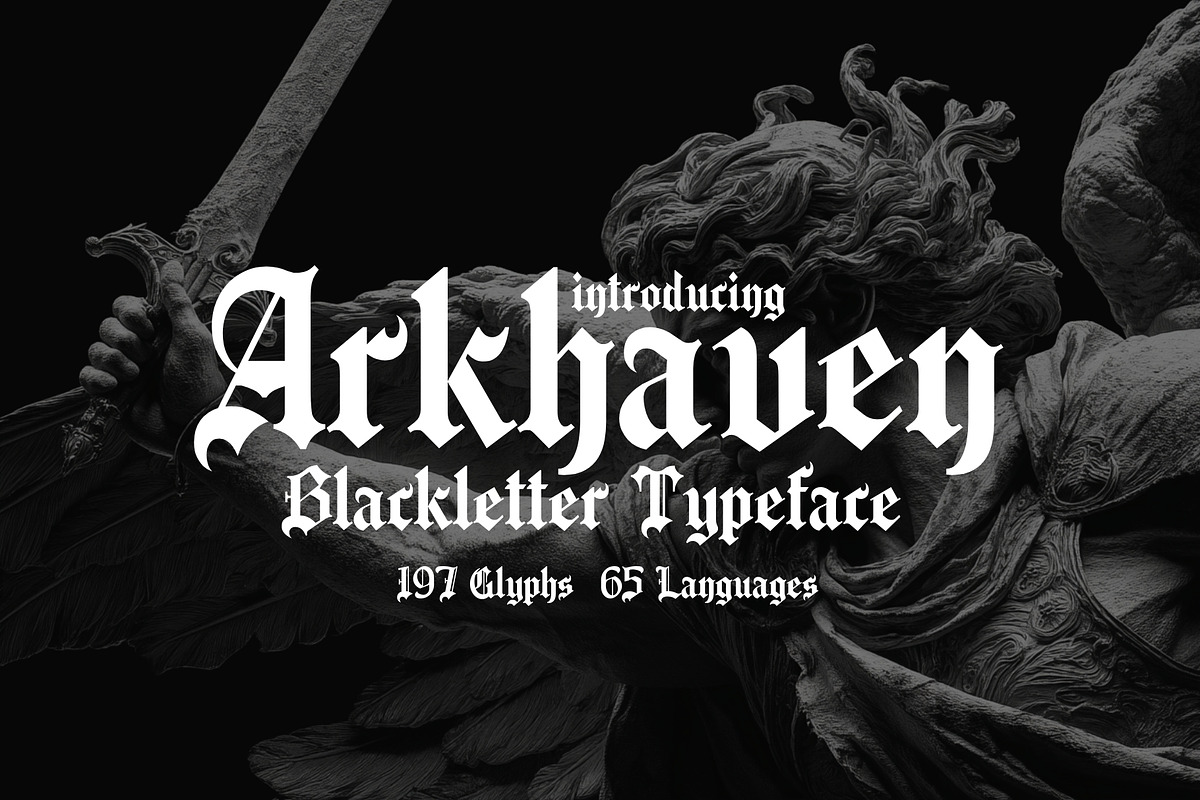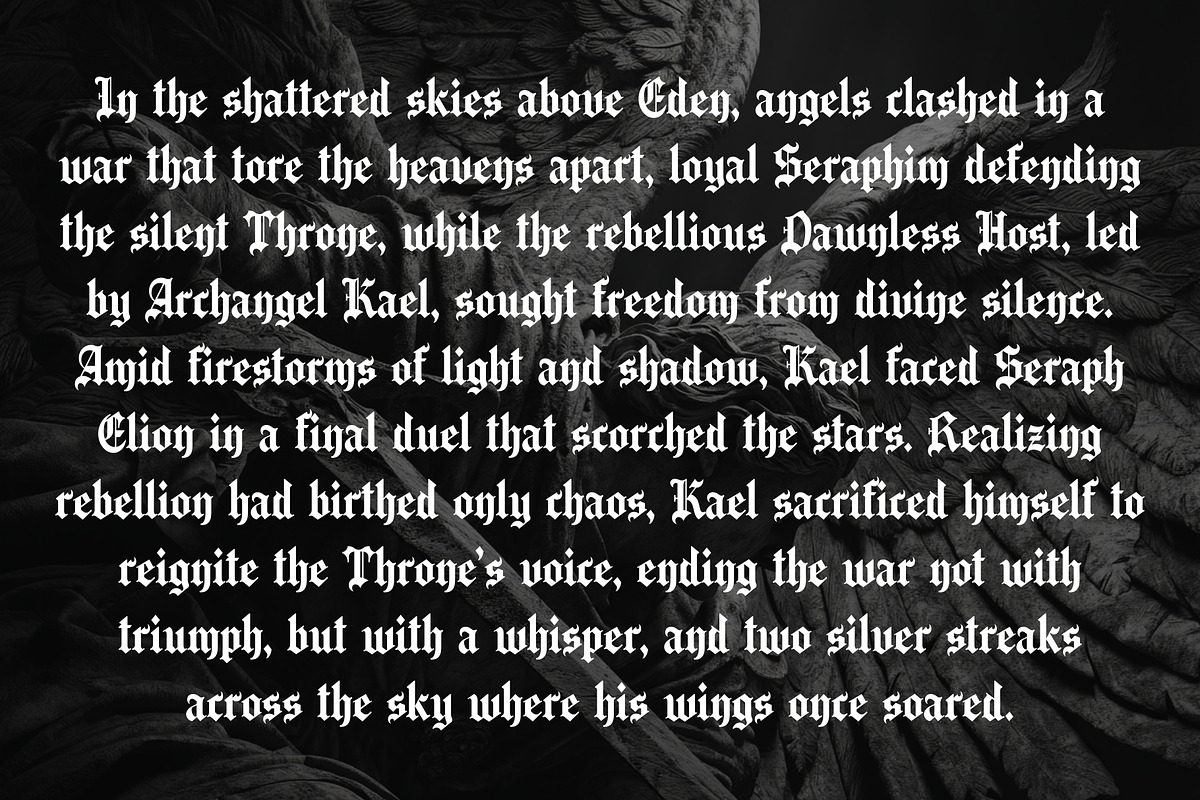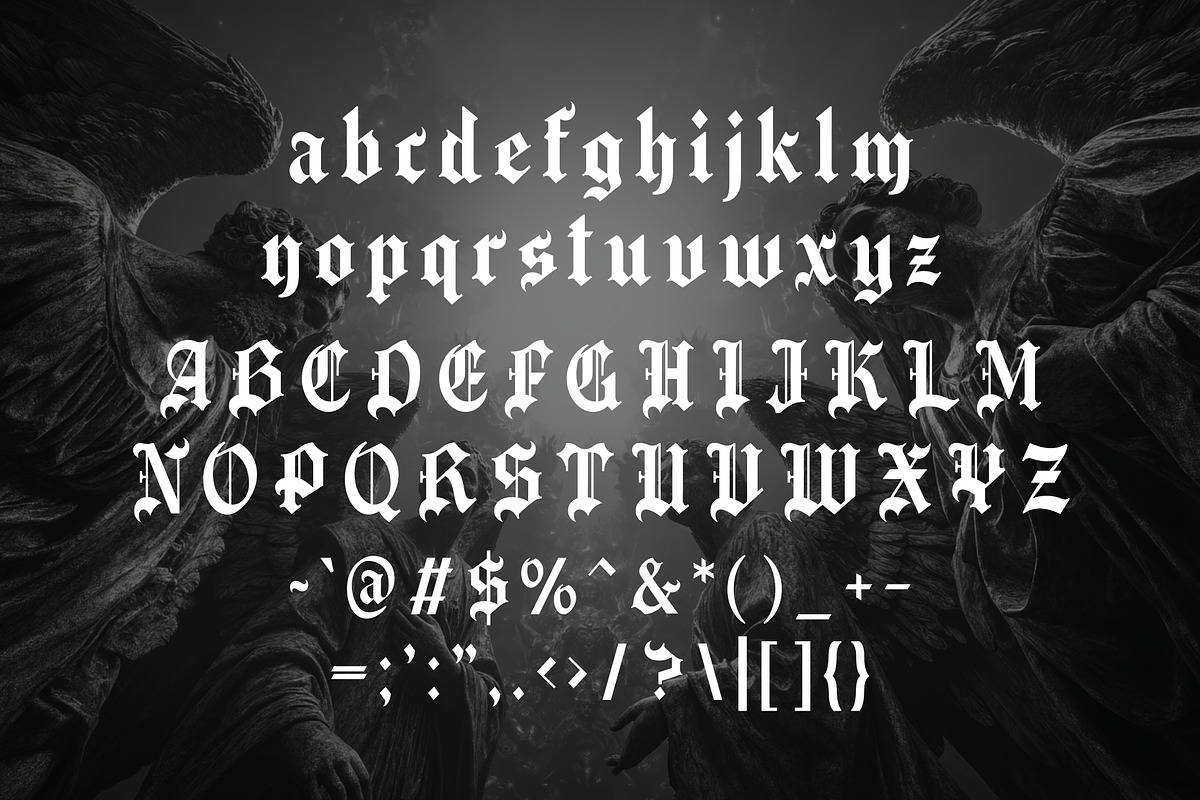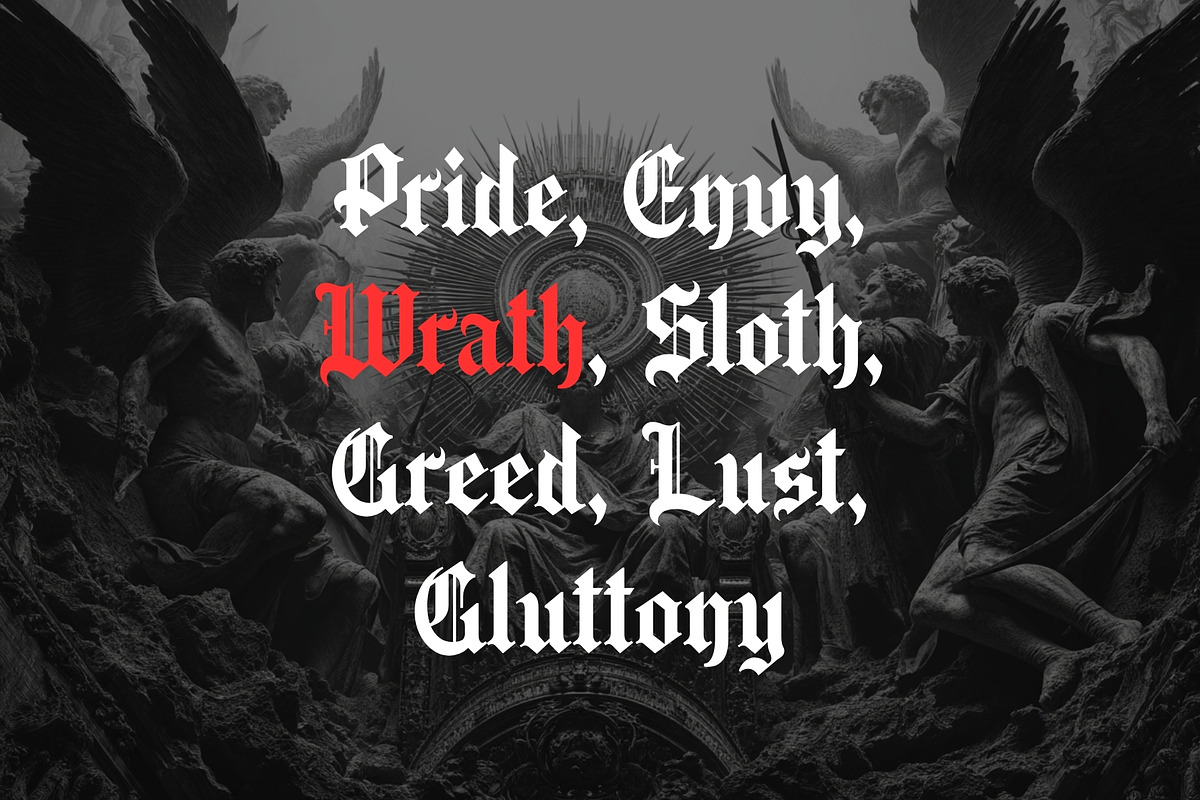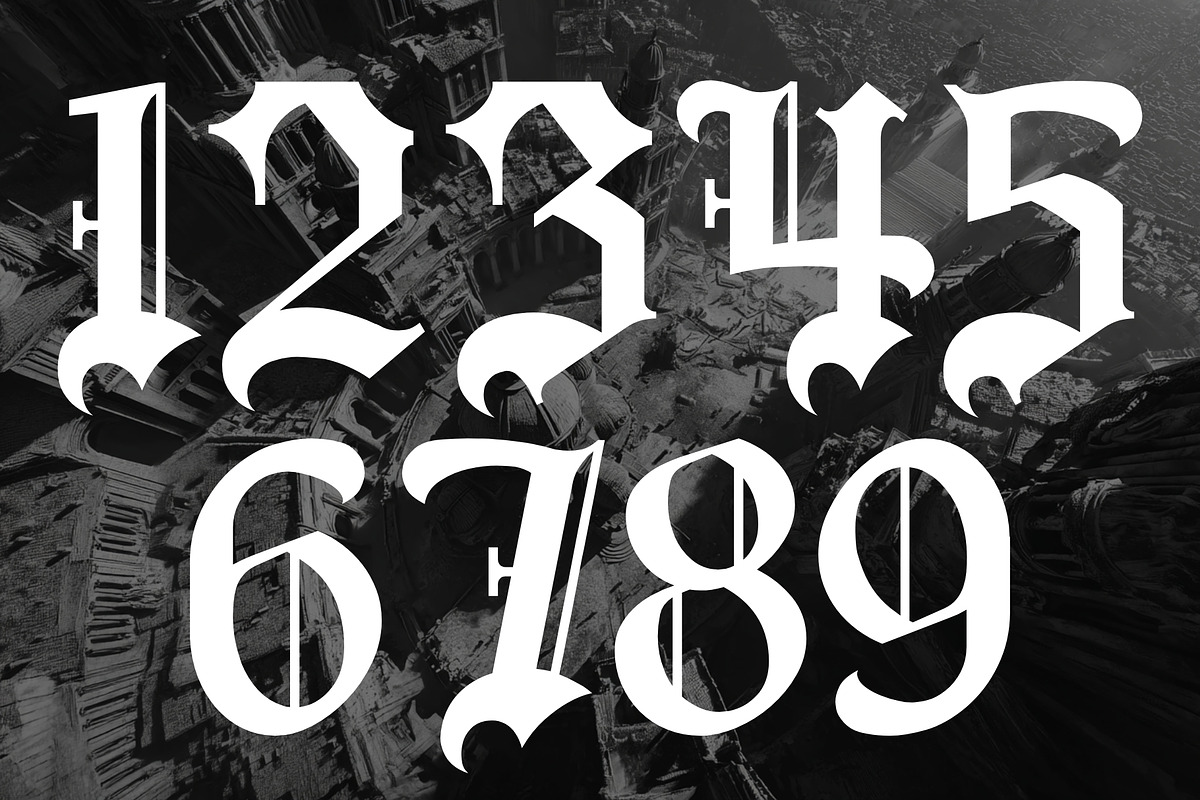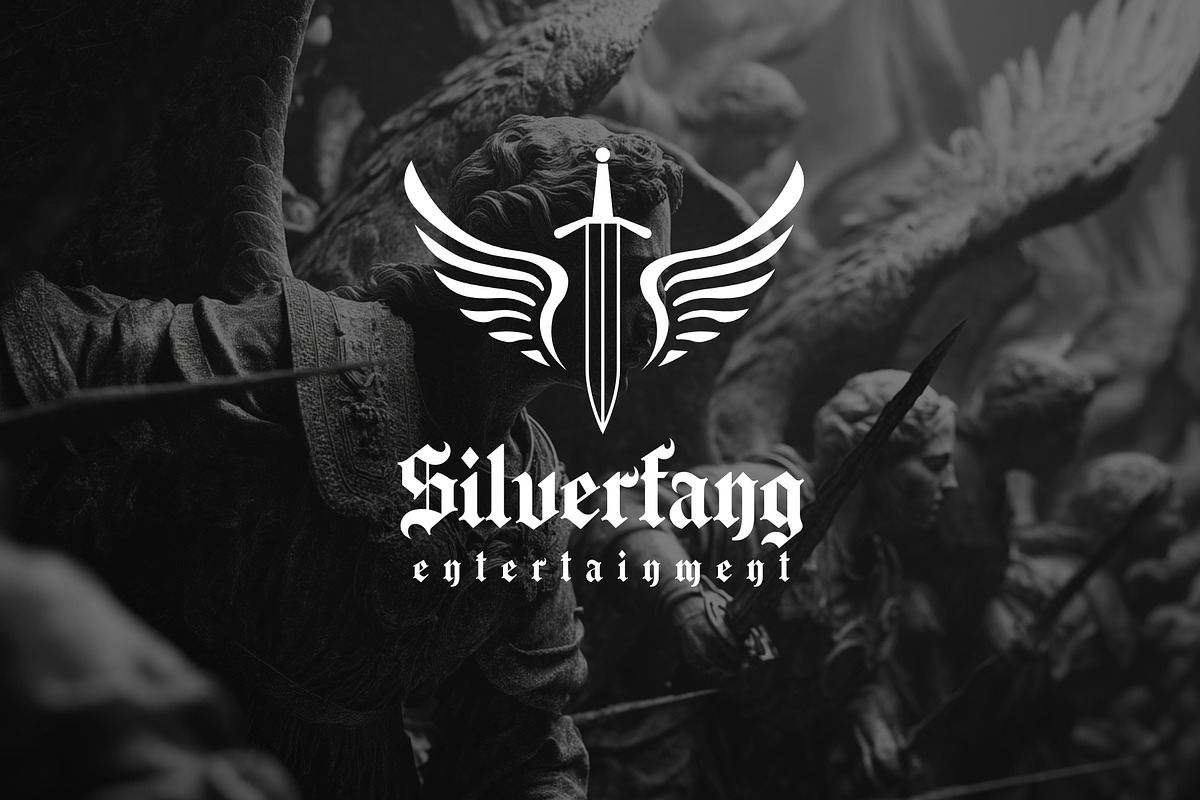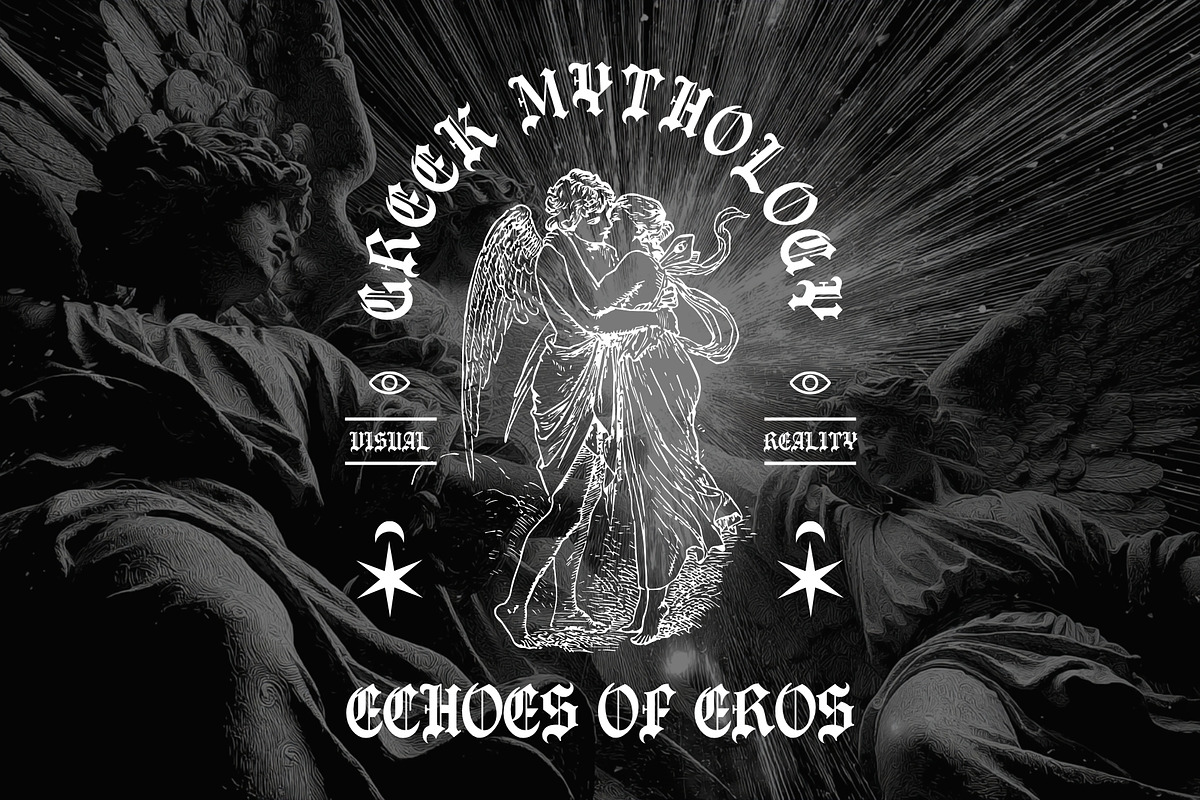
Arkhaven - Gothic Blackletter Type
Arkhaven is an epic and beautiful gothic blackletter typeface that bridges the sacred and the sublime. Inspired by the majestic lettering of Old English manuscripts, cathedral inscriptions, and ancient tomes, Arkhaven radiates both power and grace.
Its refined serifs, ornate curves, and dramatic contrast give it a timeless elegance—perfect for designers looking to capture that medieval, mysterious, or spiritual essence. With 197 glyphs and support for 65 languages, this typeface isn't just eye-catching, it's incredibly versatile and ready for global storytelling.
Whether you're designing for fantasy books, historical branding, gothic logos, album artwork, or elegant invitations, Arkhaven stands tall with an unforgettable presence. It’s not just a font, it’s a relic reborn.